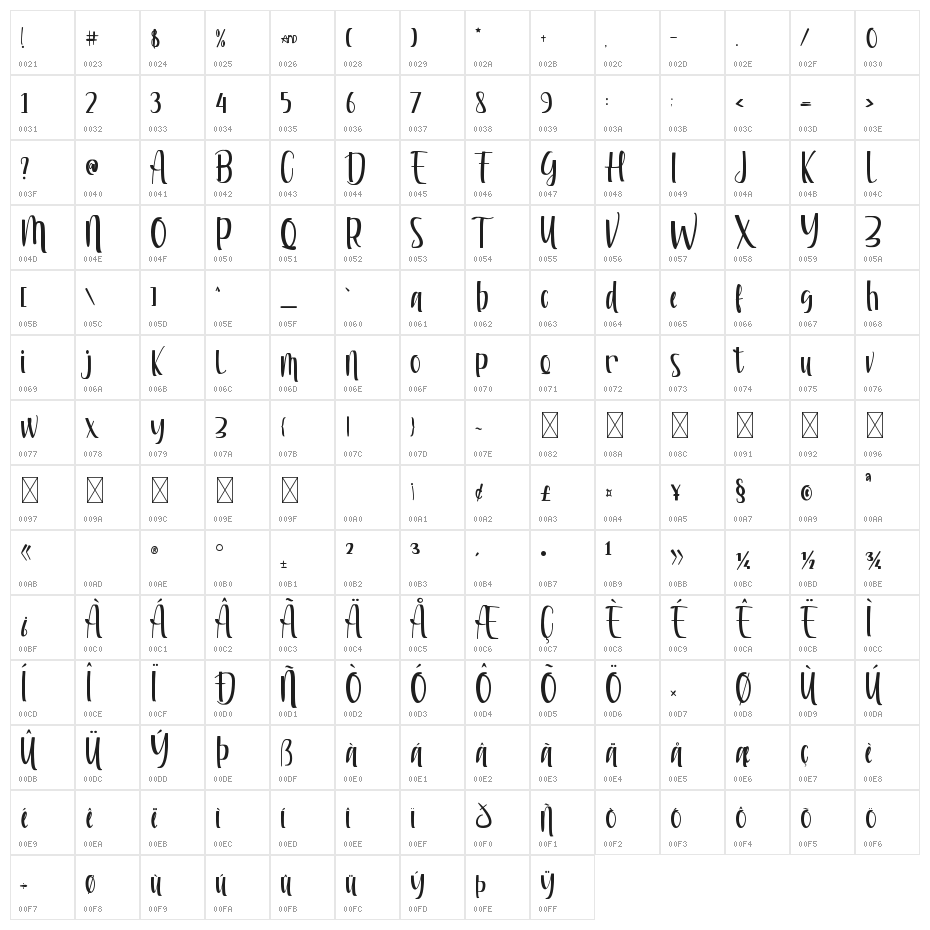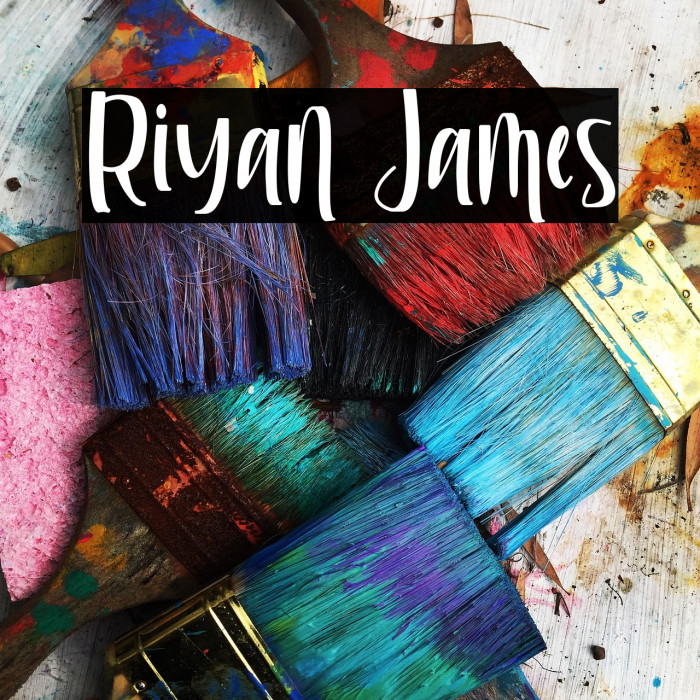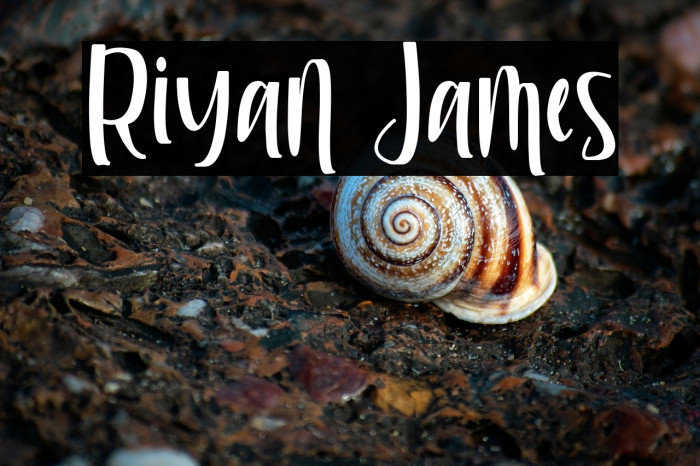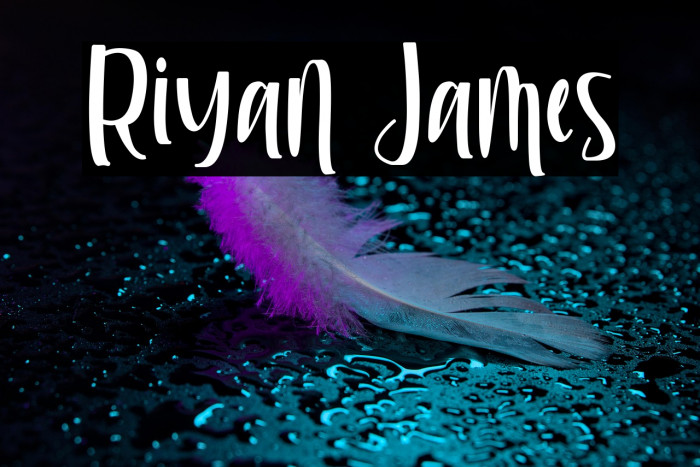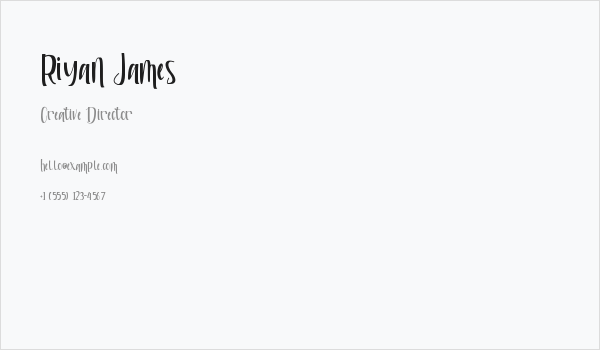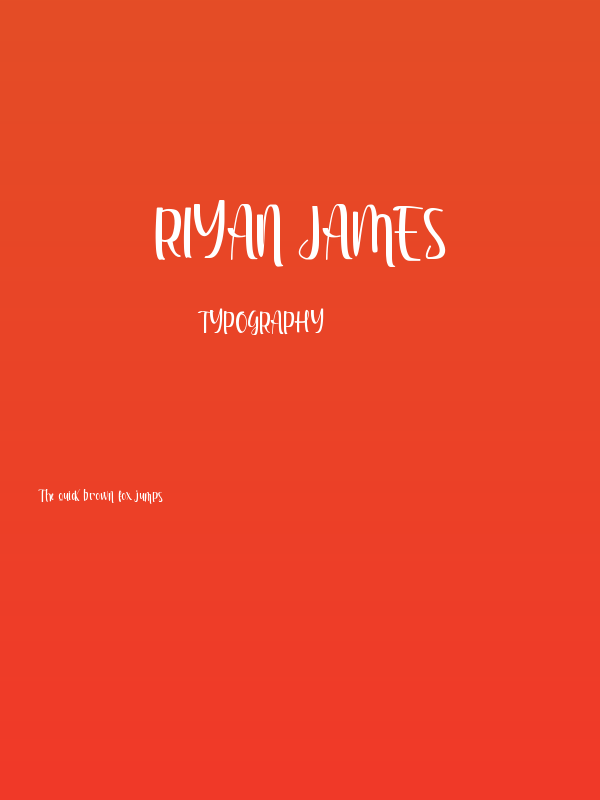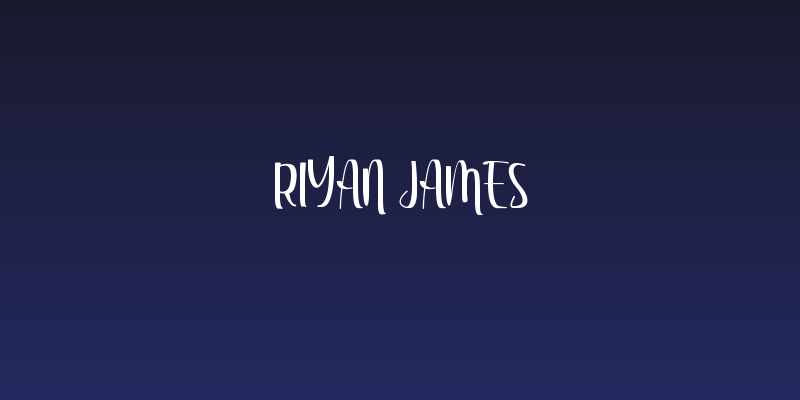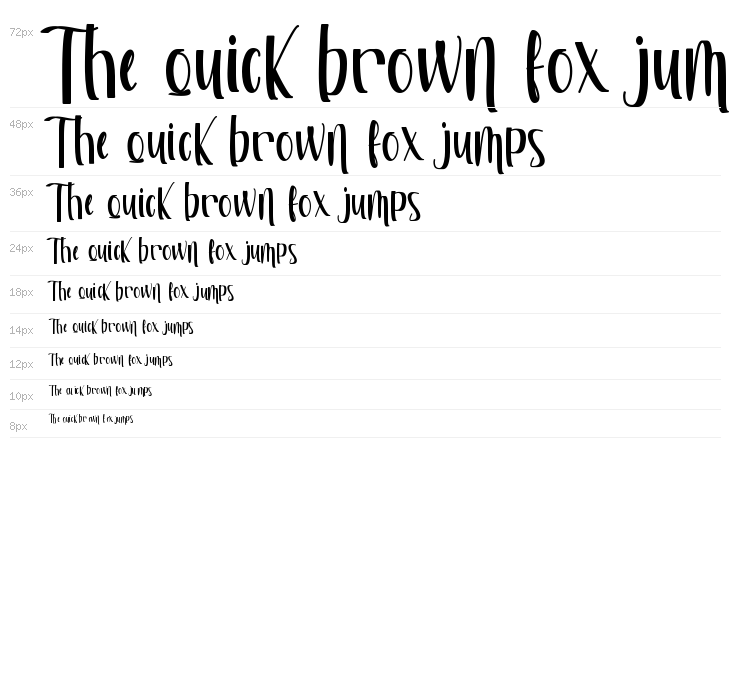
Riyan James Font
Riyan James Description
This font features a playful and artistic style with a handwritten flair. The letters are characterized by their flowing, cursive-like strokes, which give them a dynamic and lively appearance. The uppercase letters are bold and slightly elongated, while the lowercase letters maintain a consistent rhythm with a touch of whimsy. The numbers are clear and distinct, matching the overall aesthetic of the font. Special characters are creatively integrated, adding to the font's versatility. The overall design is both modern and decorative, making it suitable for a variety of creative projects.